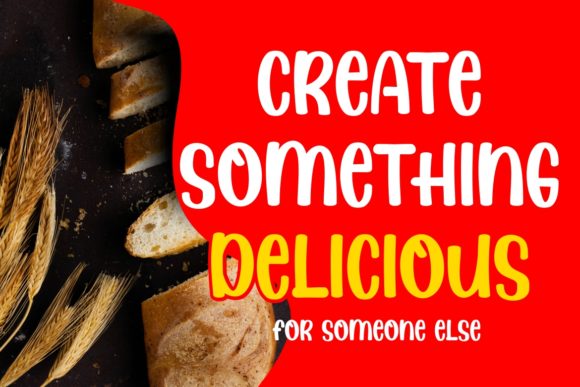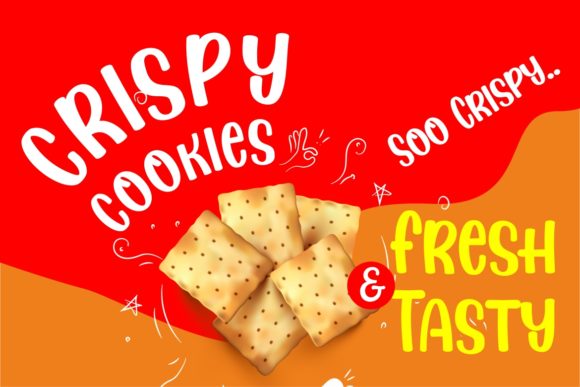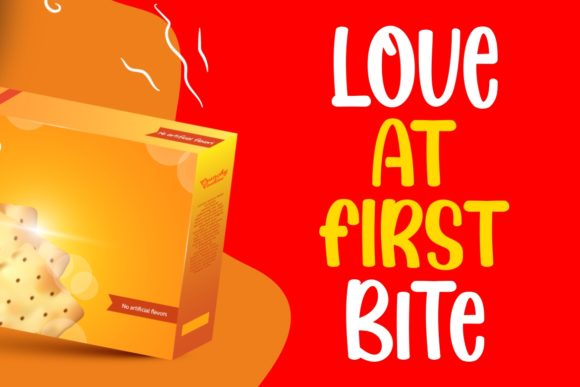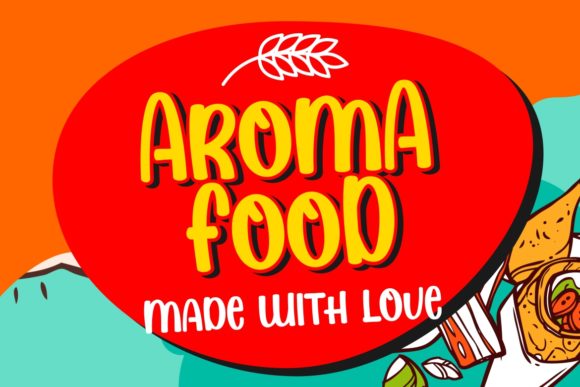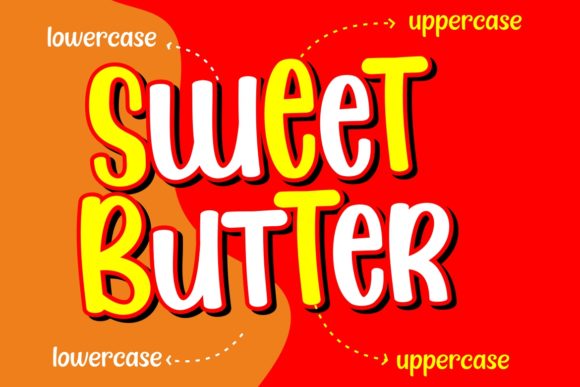
Sweet Butter Font
About Sweet Butter Font
Sweet Butter is a cute and sweet display font with an incredibly friendly feel. Whether it’s for logo, print, moving images or anything else – Sweet Butter will look spectacular.